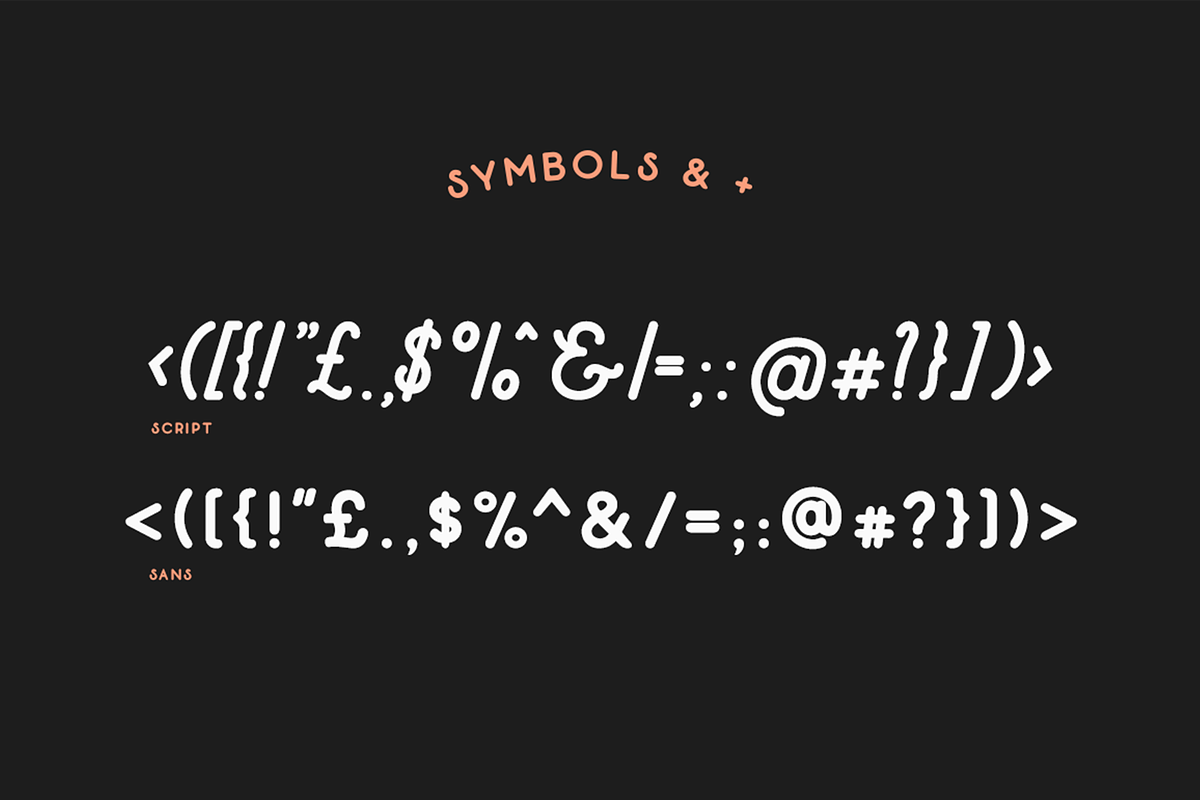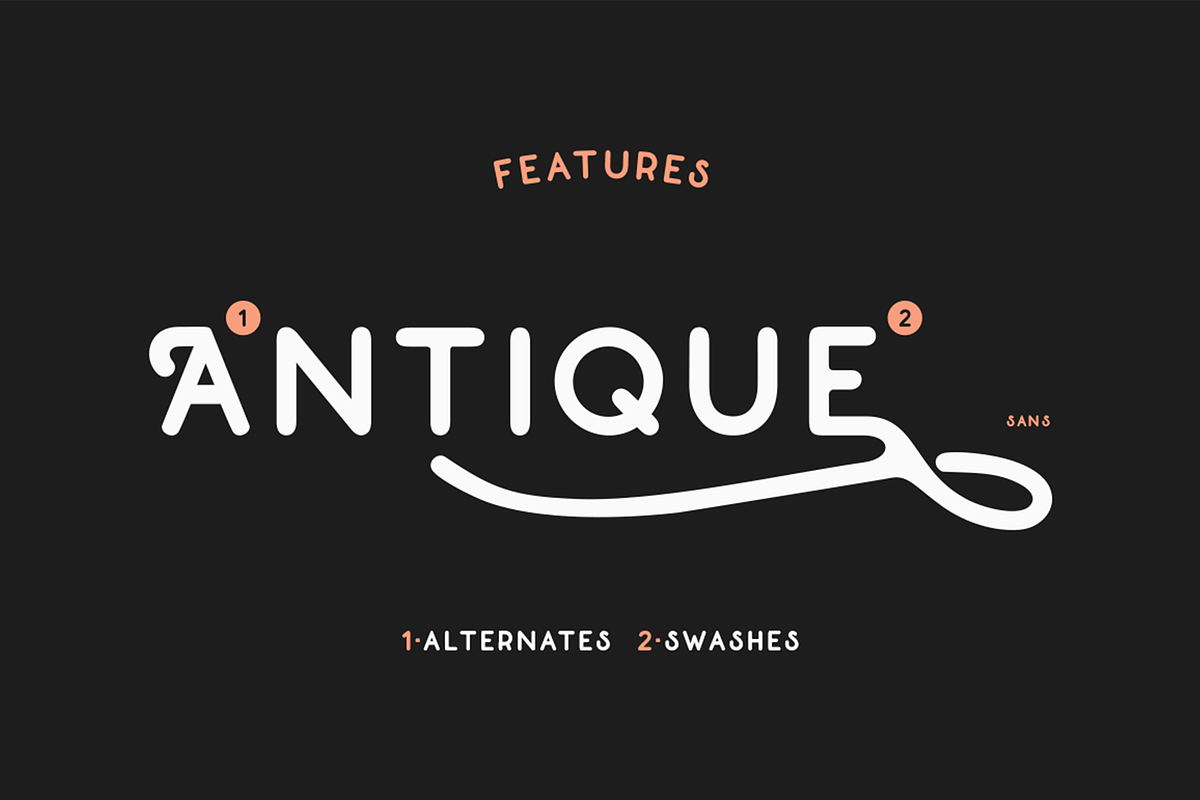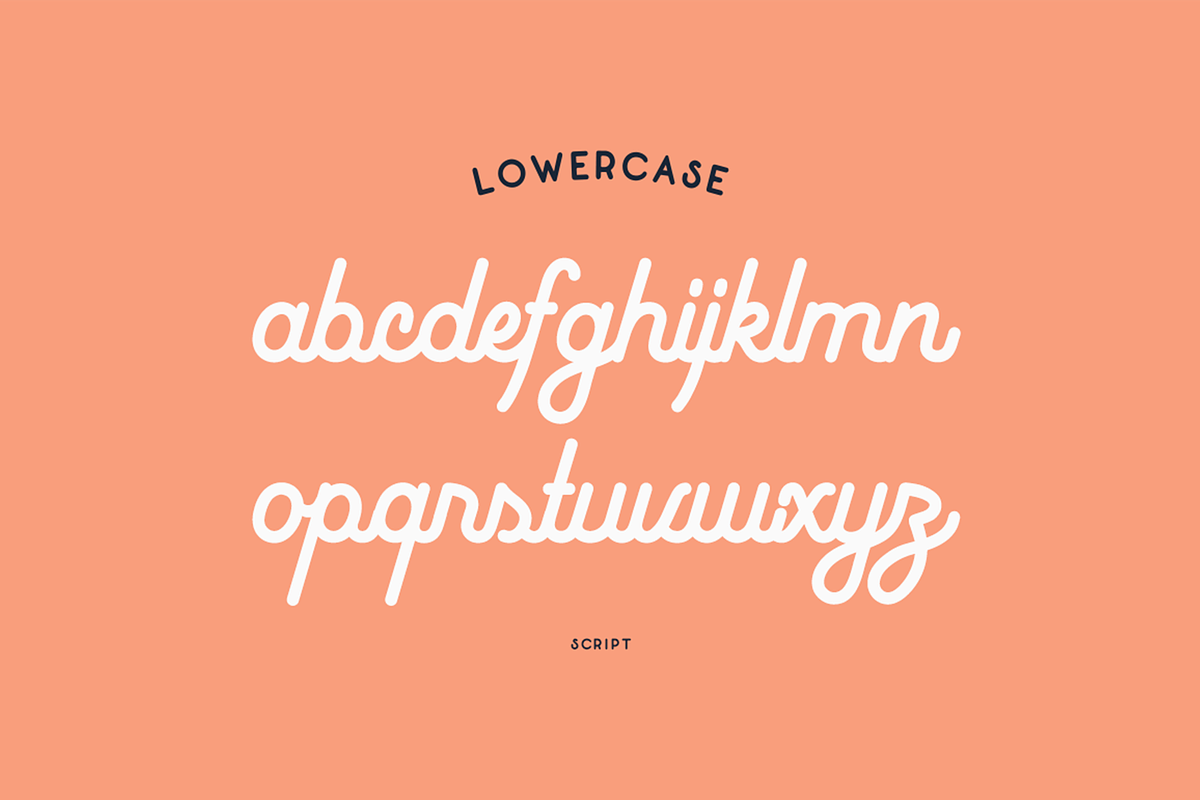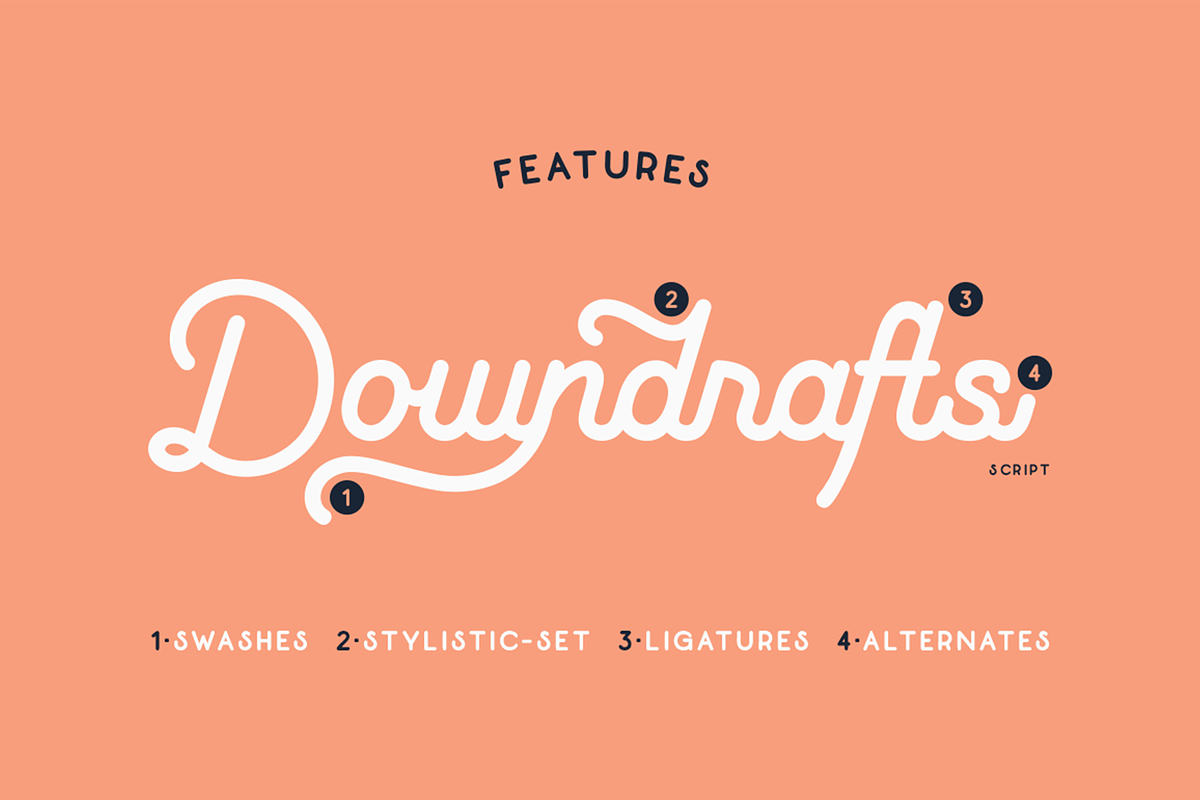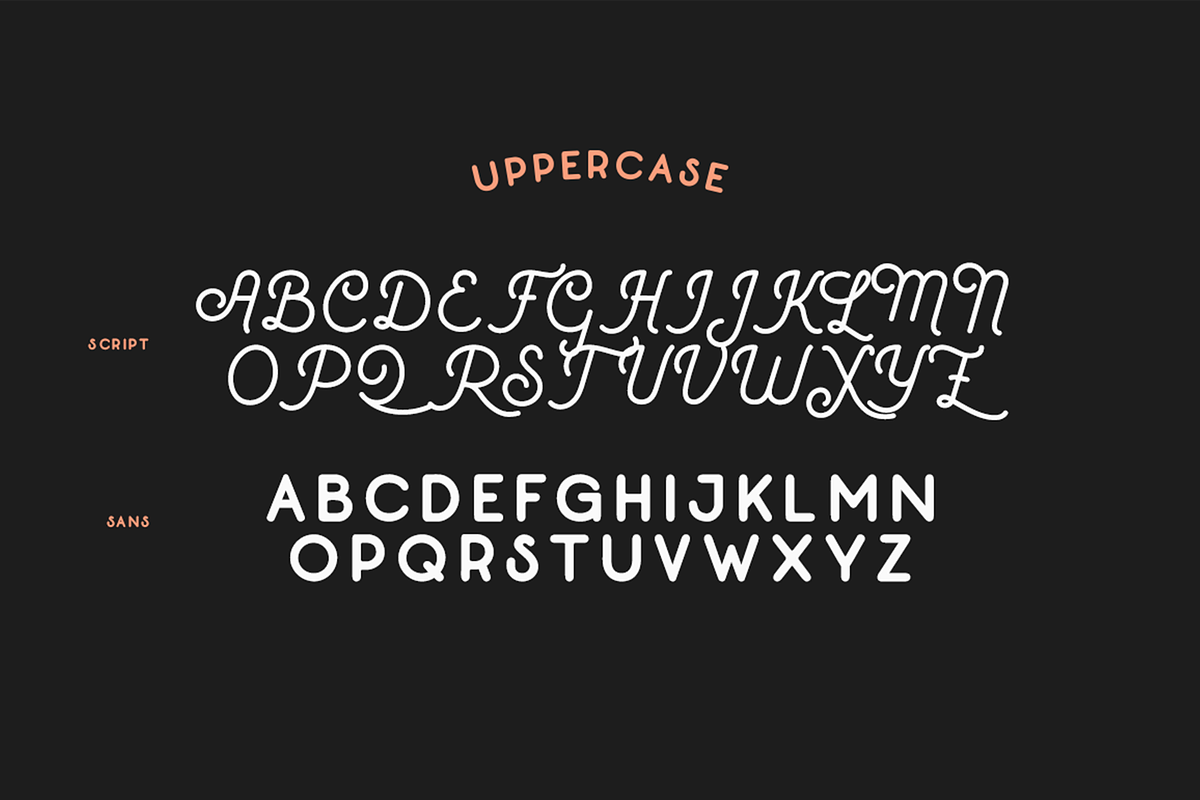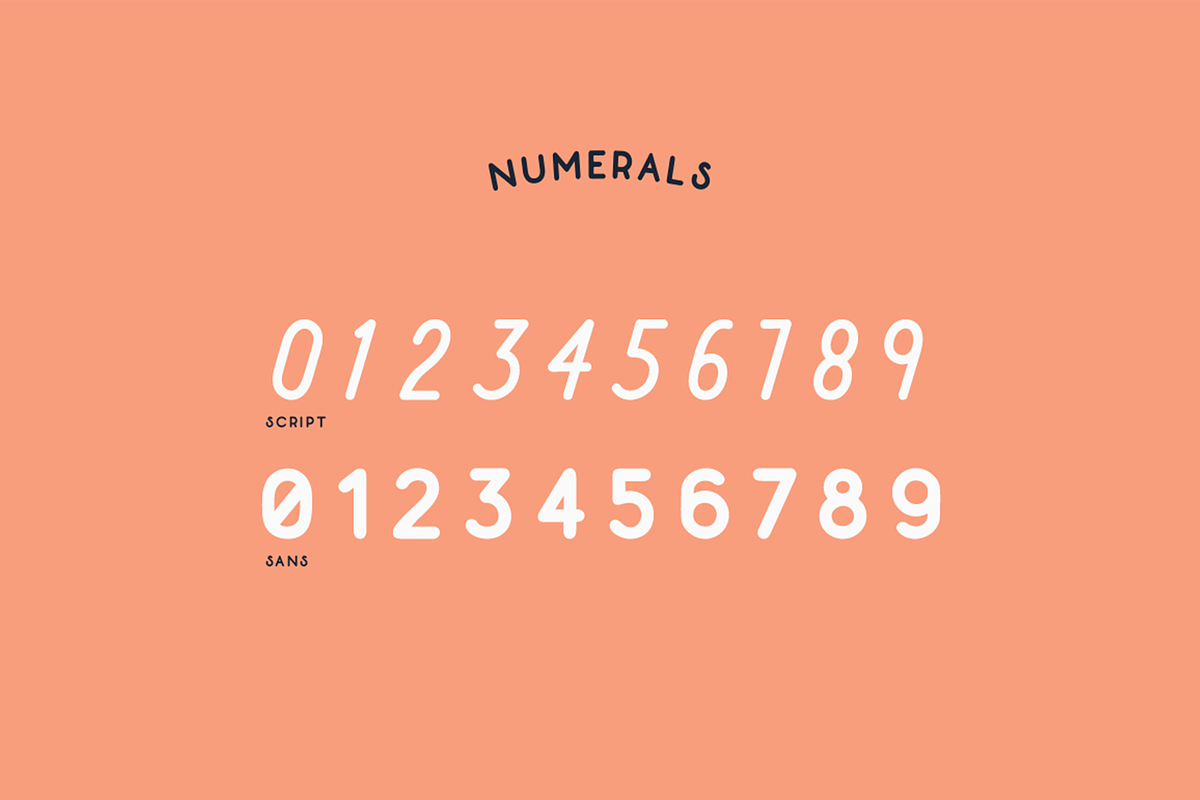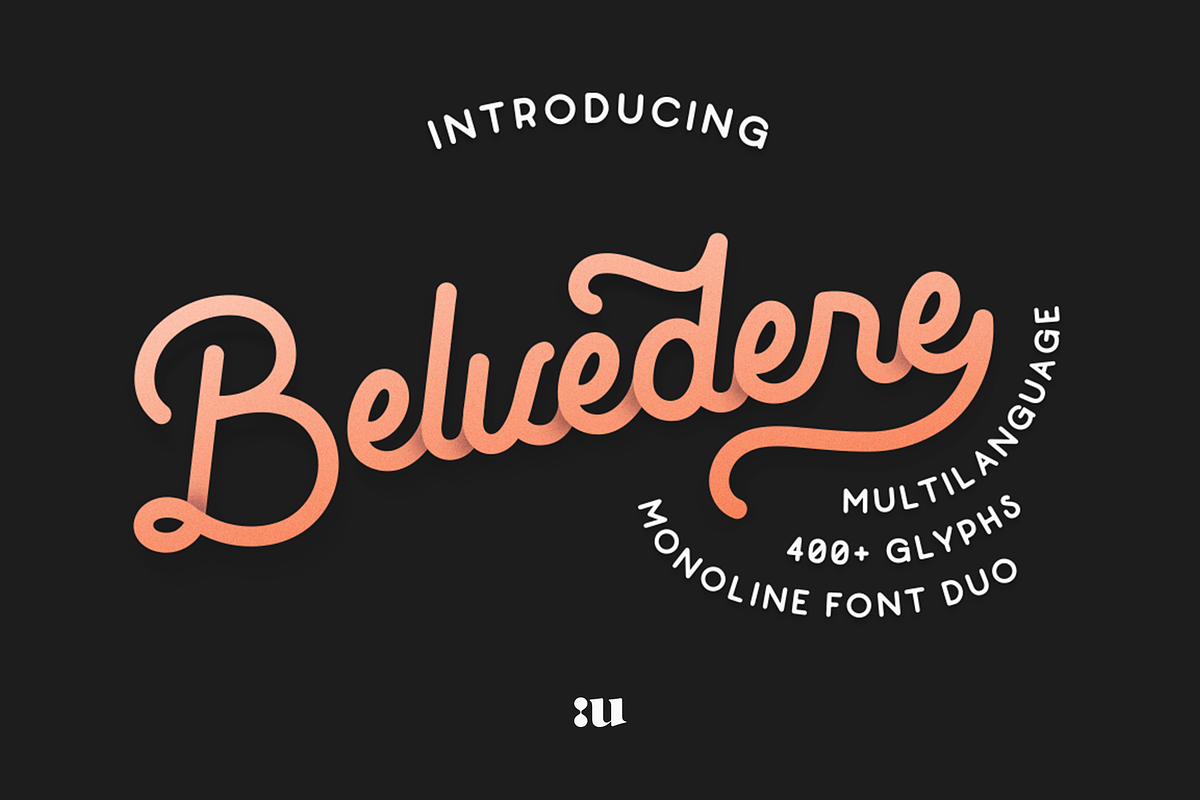
Belvedere - Monoline Font Duo
“Belvedere”is a mono-line font duo which has been inspired by the typography style of two important decades, the never outdated 40’s and 50’s.
This vintage font family is composed by a mono weight cursive script and a complementary sans-serif. All the characters have been designed to enhance the overall smoothness, which is undoubtedly useful to maximize the readability.
Belvedere is a versatile font family which includes more than 400 characters and covers several languages based on the Latin alphabet; the whole font design has also been completed with extensive alternates, ligatures and swashes sets.
This font duo would be perfect for a wide variety of design purposes such as logotype, badges, clothing, poster and much more. A vector collection of 26 hand-drawn vintage illustrations has been included to perfectly match both fonts style. Expand your designs possibilities!
- OpenType features(Alternates, ligatures and swashes)
Belvedere - Monoline Font Duo by Unio Designs fits naturally into Branding, posters, packaging, typography.